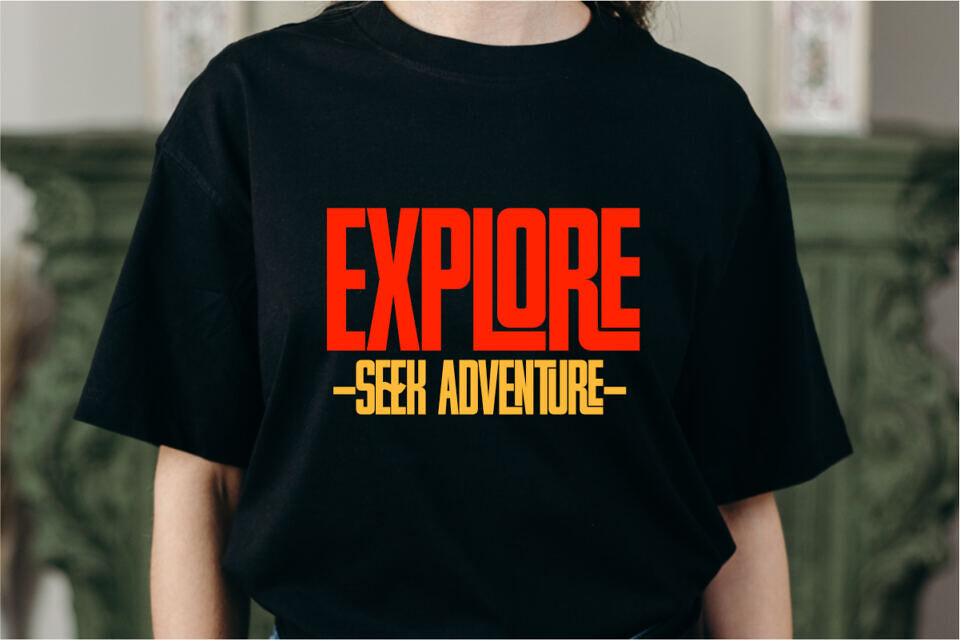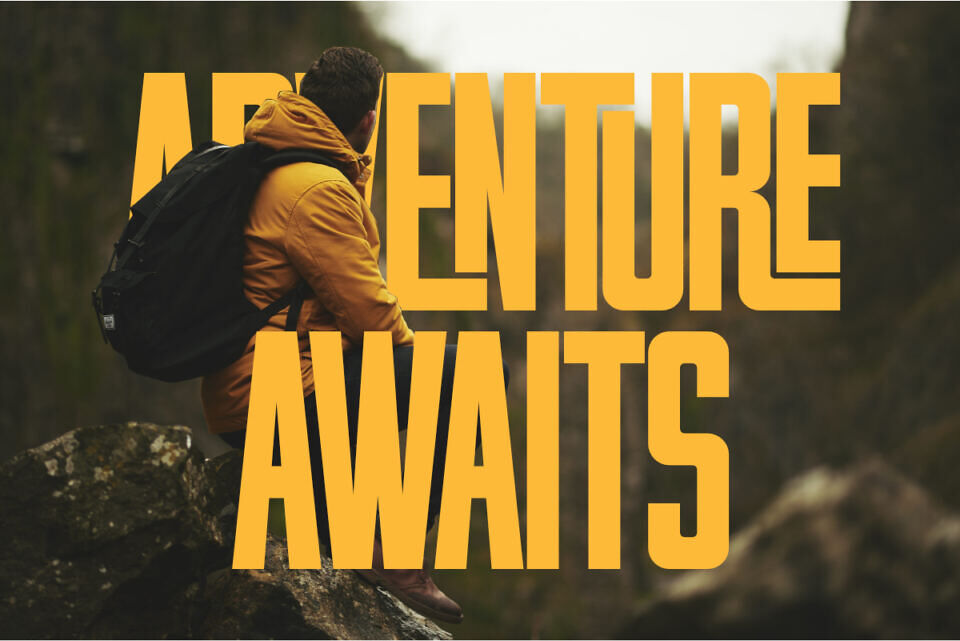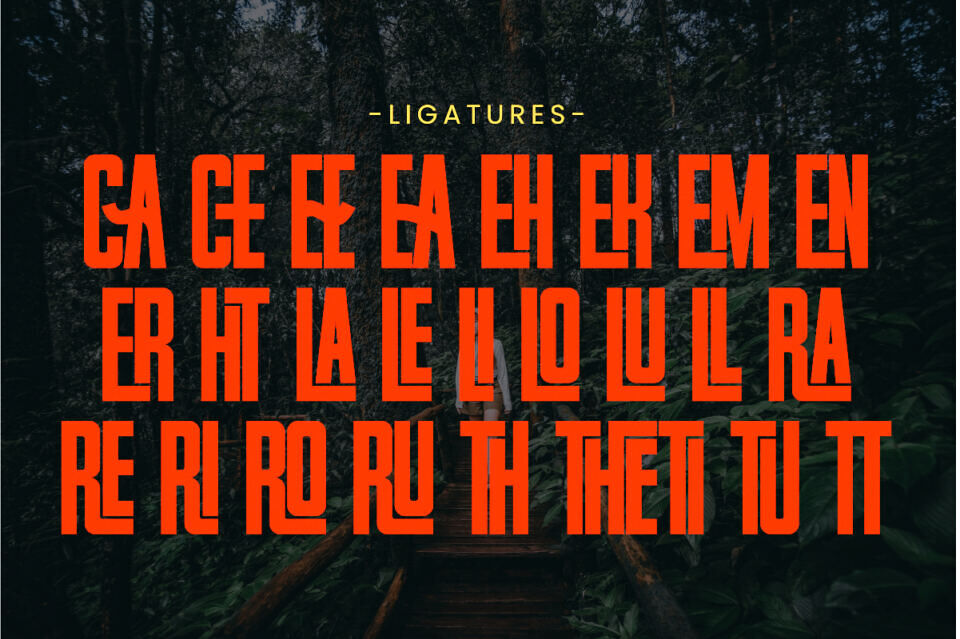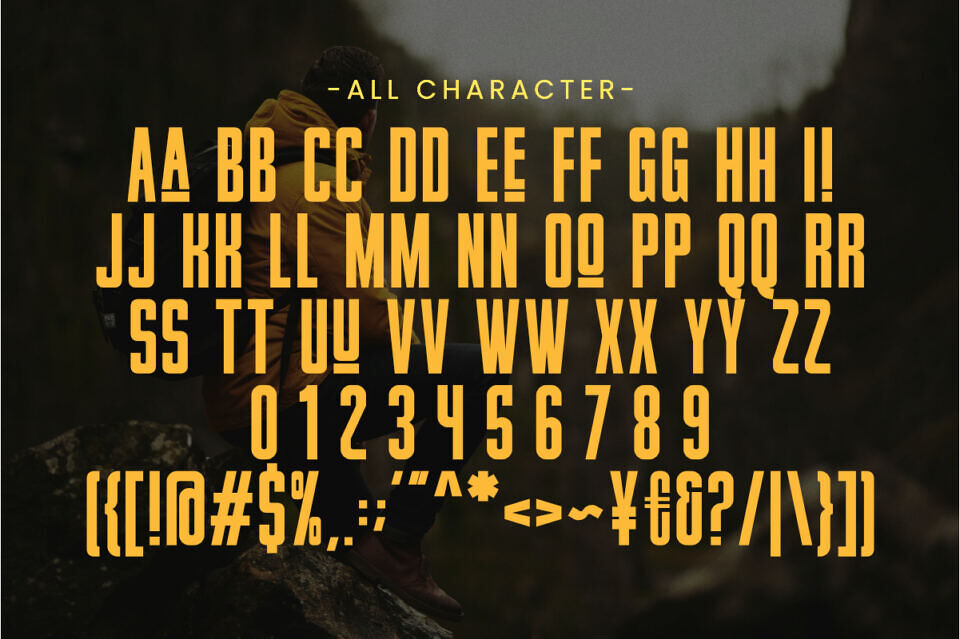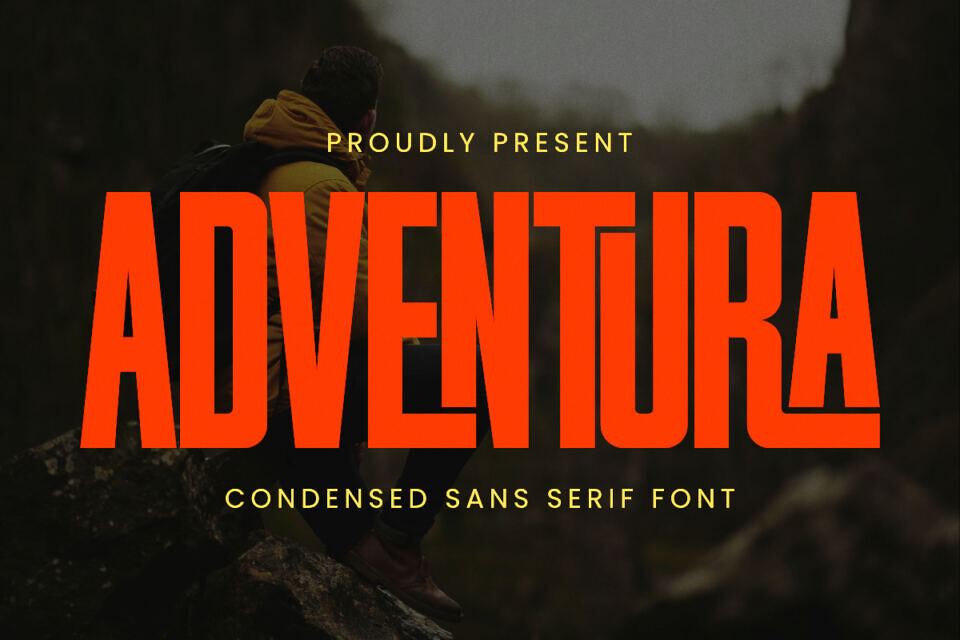
Adventura Font
Adventura is a bold and modern condensed sans-serif font designed for powerful and impactful typography. With its tall and sleek letterforms, this font is perfect for headlines, posters, branding, sports designs, adventure gear, logos, and editorial layouts.
Whether you want to create a striking outdoor campaign, a bold product label, or a stylish magazine cover, Adventura will bring strength, confidence, and clarity to your designs.